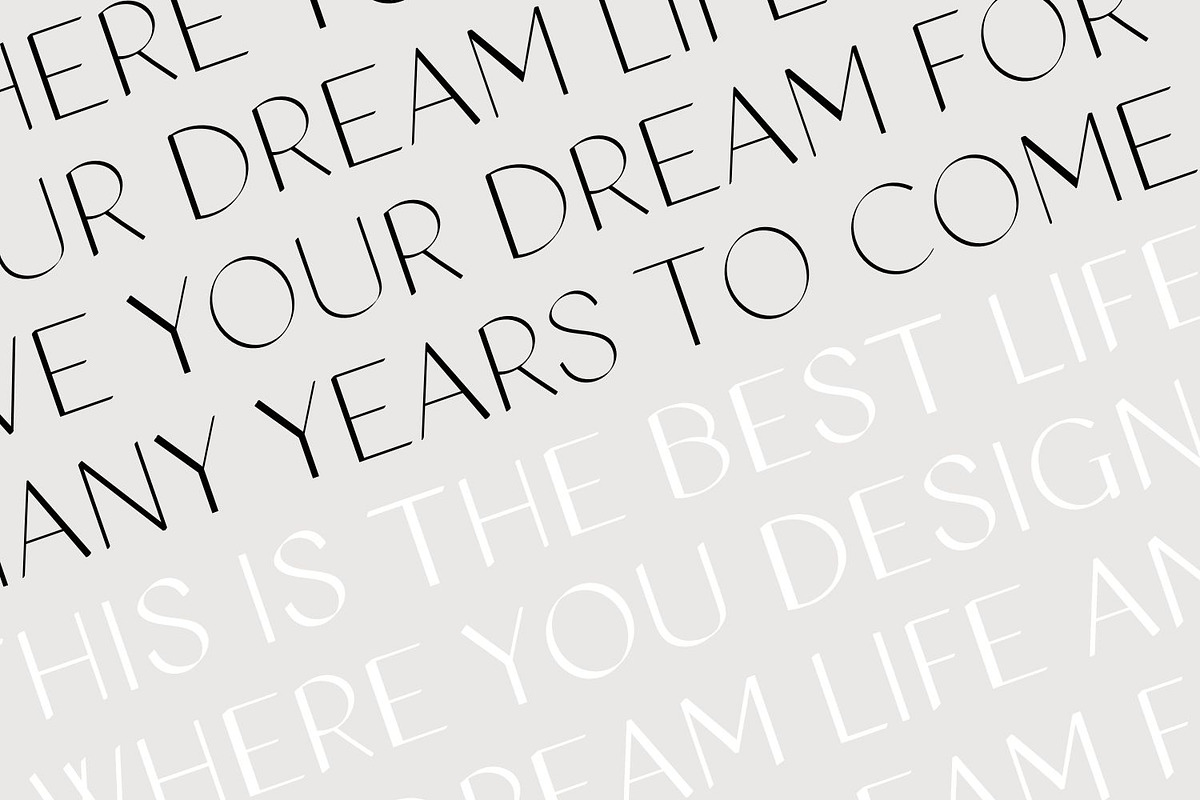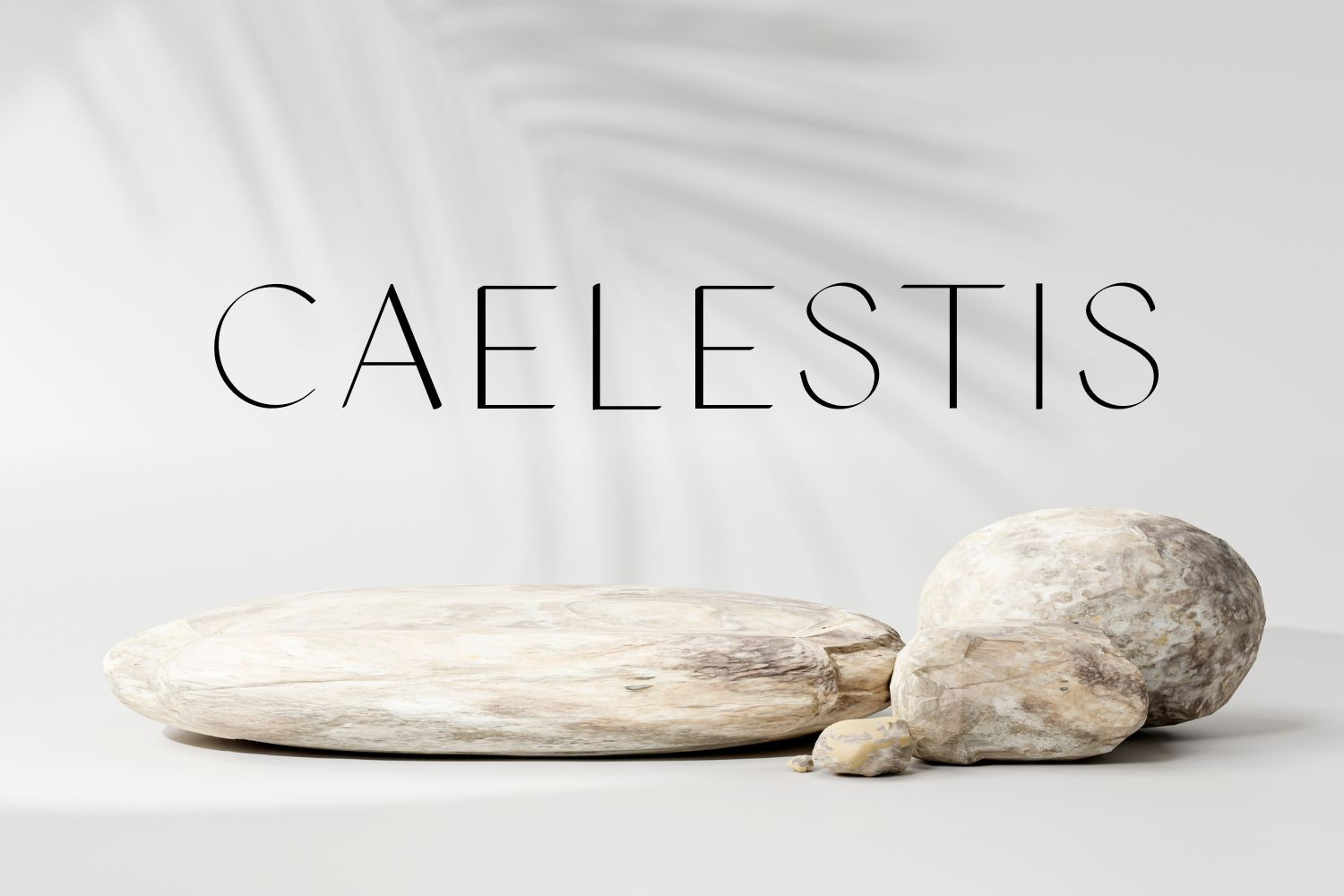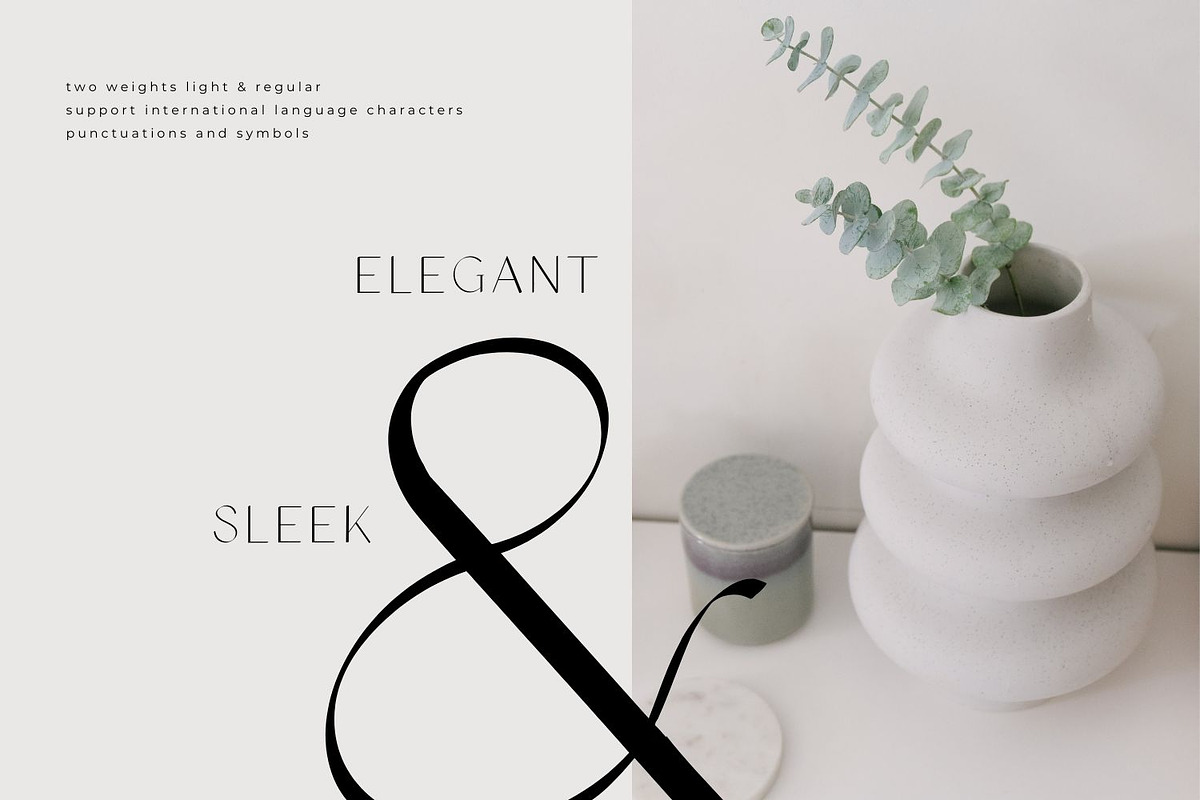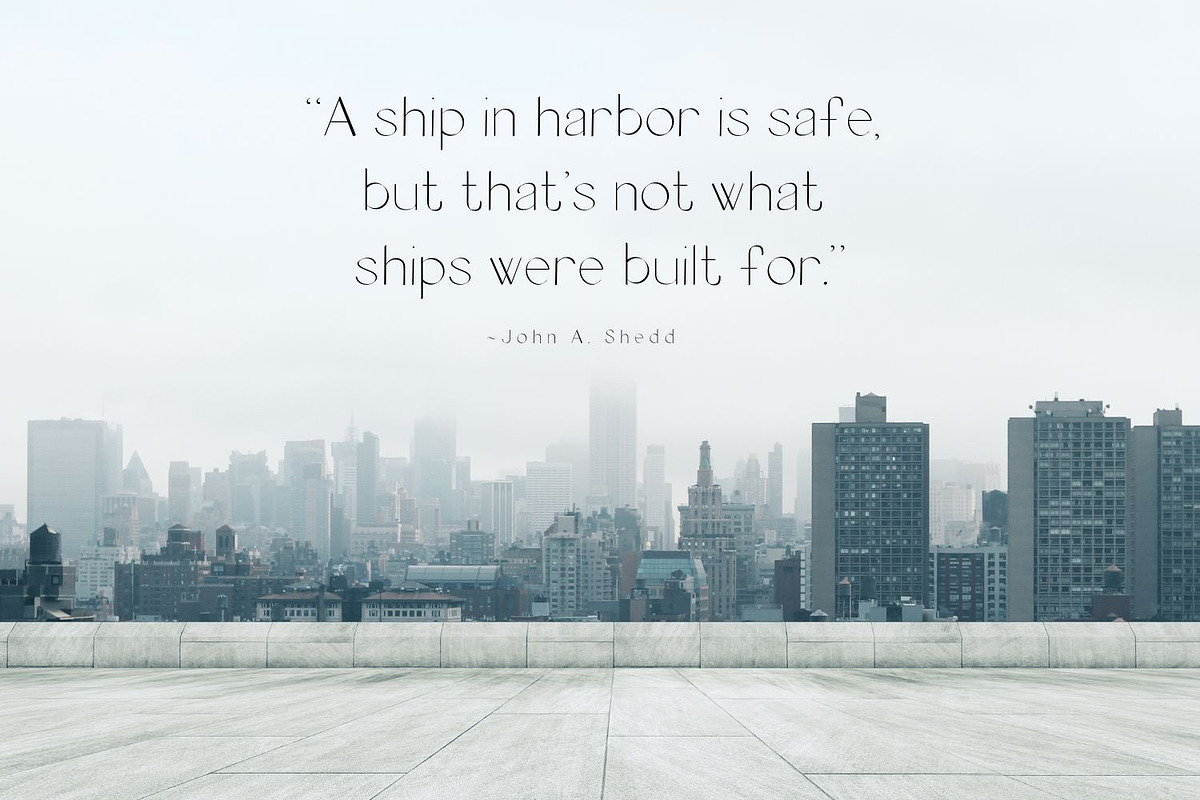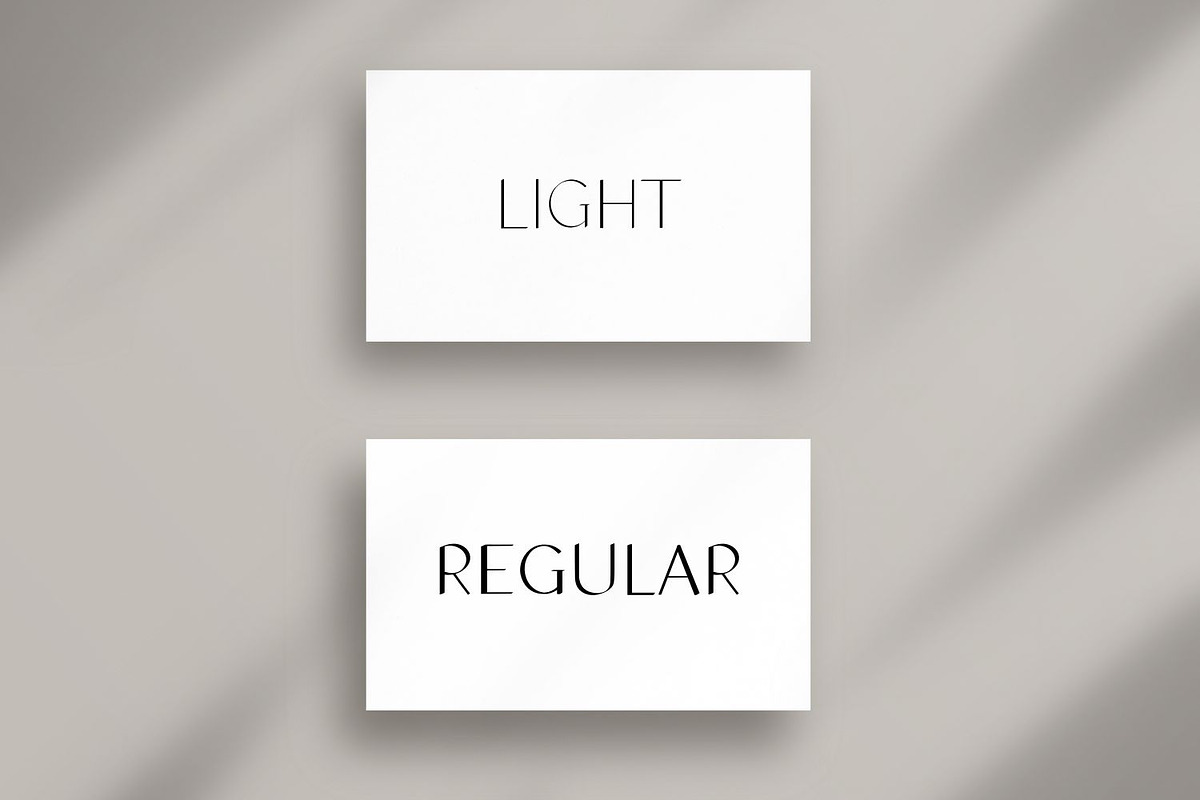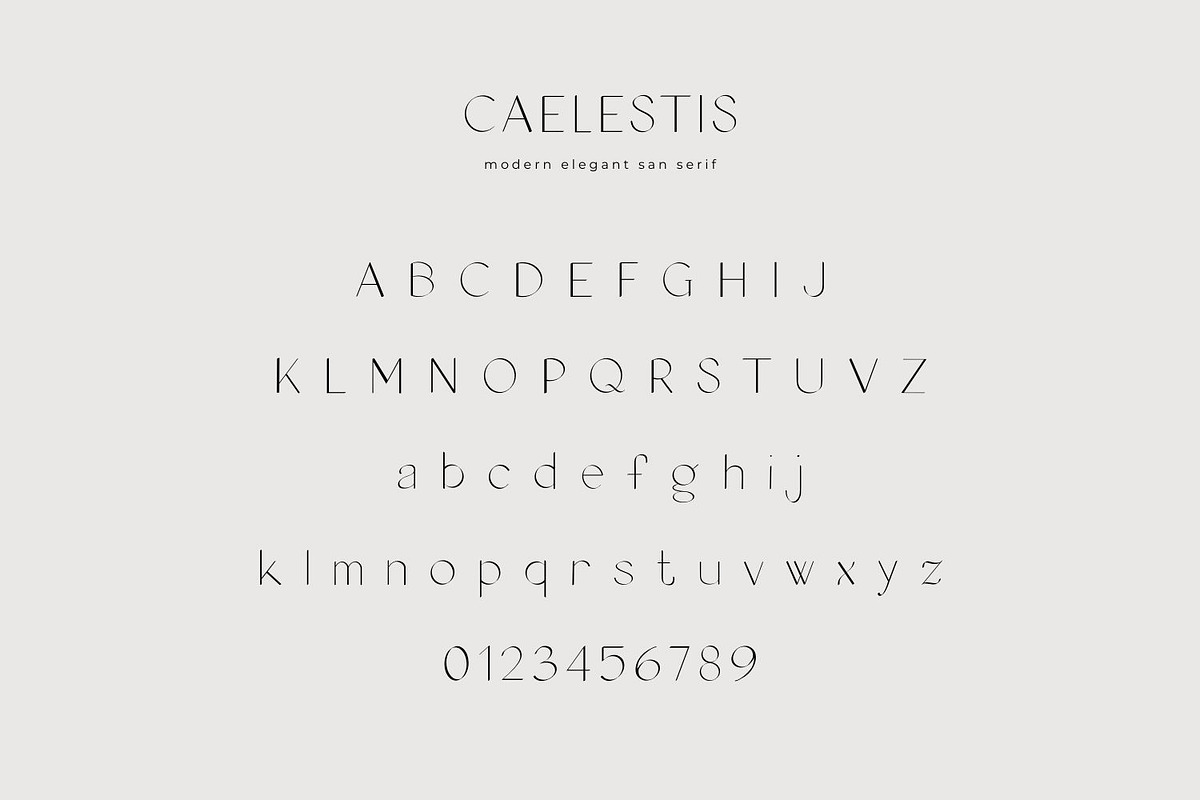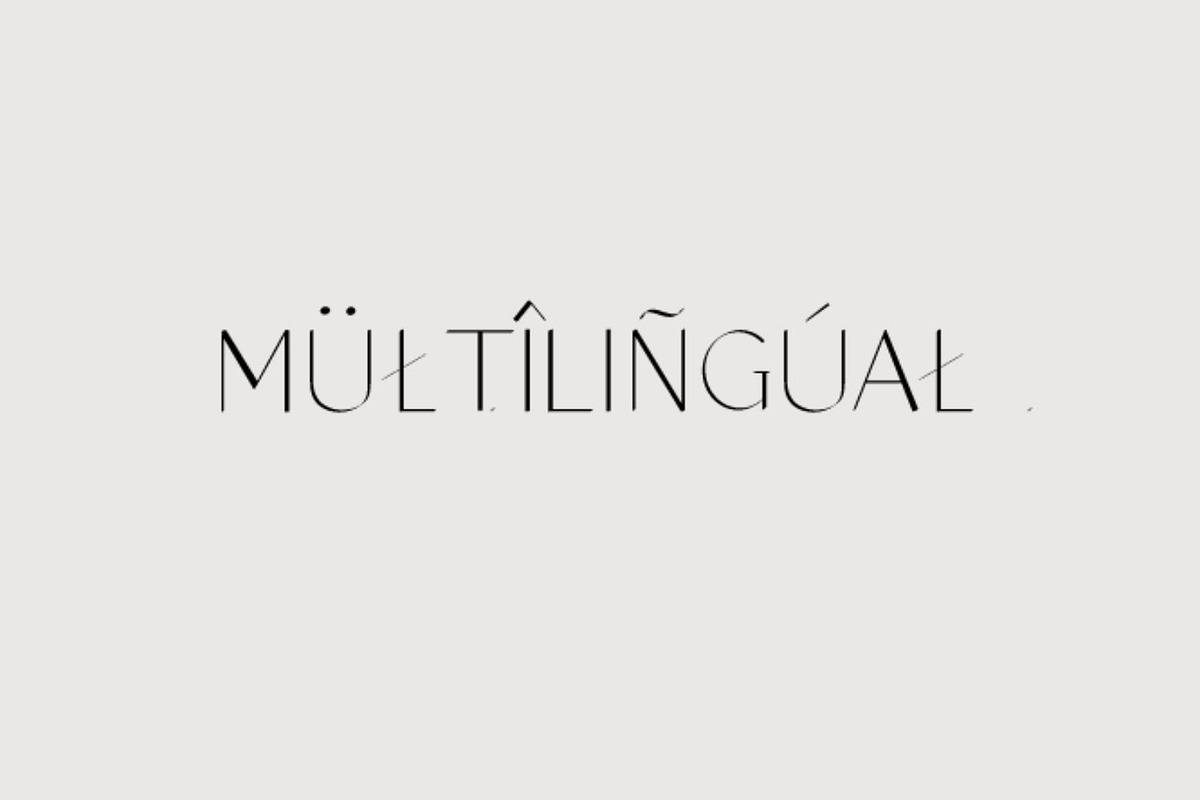
CAELESTIS elegant sans serif font
Caelestis: Elegant, Modern Sans Serif Font
Elevate your designs with Caelestis, an elegant and sleek sans serif font that brings a touch of modern sophistication to any project. Perfectly balanced and versatile, Caelestis is available in two weights: Light and Regular, offering flexibility and style for all your creative needs.
- Elegant Design: A modern, sleek sans serif typeface that exudes sophistication and style.
- Two Weights: Available in Light and Regular, providing versatility for various design elements.
- Multilingual Support: Includes many international characters, making it perfect for multilingual projects.
- Comprehensive Character Set: Features numbers, special characters, and punctuations, ensuring complete functionality.
- Versatile Use: Ideal for branding, logos, invitations, social media graphics, websites, and more.
Whether you’re designing a chic logo, a clean website, or stylish social media graphics, Caelestis is the perfect choice for a touch of elegance and modernity. Unlock the potential of your designs with this sophisticated sans serif font.